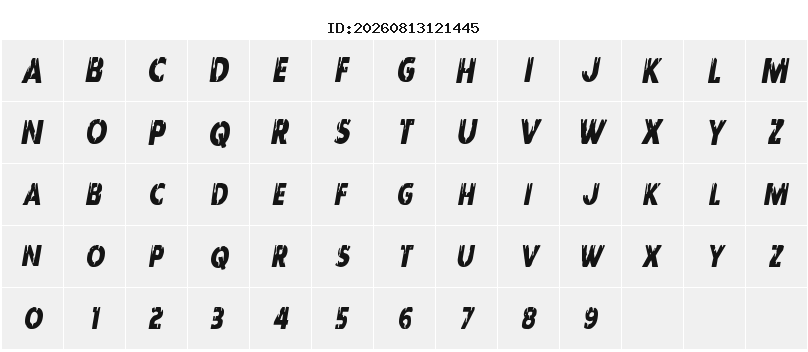
Red Undead Condensed Italic Preview
• Font Name: Red Undead Condensed Italic
• Font Style: Condensed Italic
• Full Font Name: Red Undead Condensed Italic
About Red Undead Condensed Italic.ttf
Red Undead Condensed Italic.ttf is a modern, elegant sans-serif font designed for ultimate readability and visual harmony. Perfect for branding, headlines, web design, and print materials.